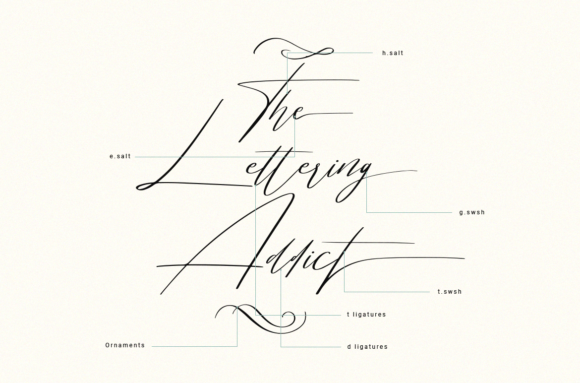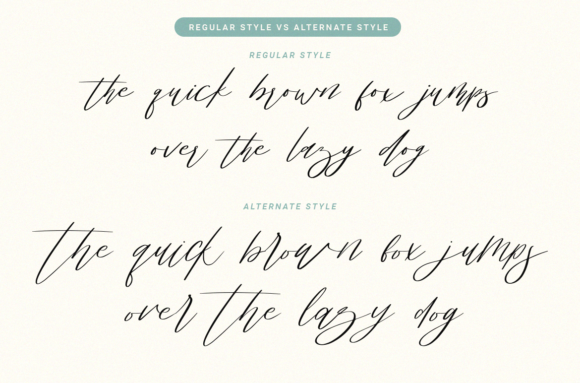
Bisqootte Font
db-ku.com - Script & Handwritten -- Bisqootte is a thin lettered and delicate script font. Add this romantic and lovely-looking font to each of your love letters, wedding invitations, or favorite design ideas, and you will be astounded by the outcome. Wak Ndjon is PUA encoded which means you can access all of the glyphs and swashes with ease!